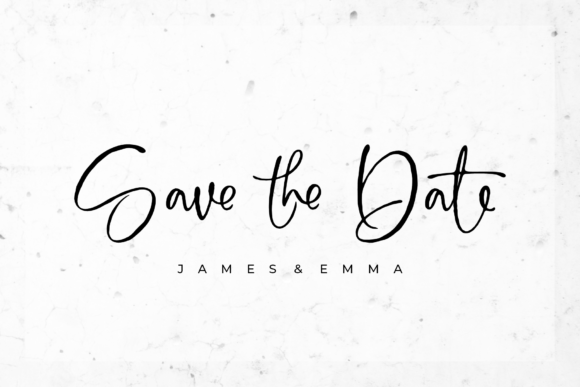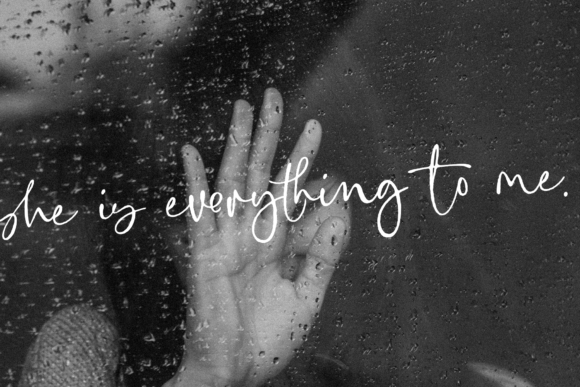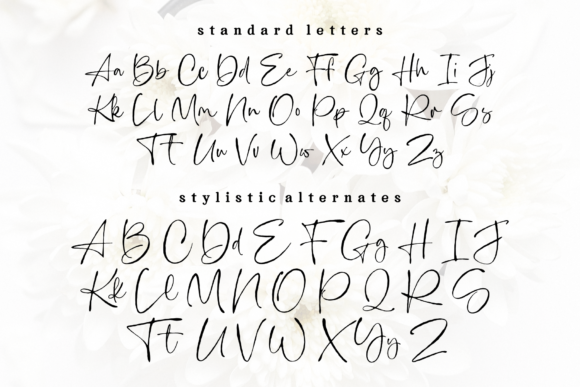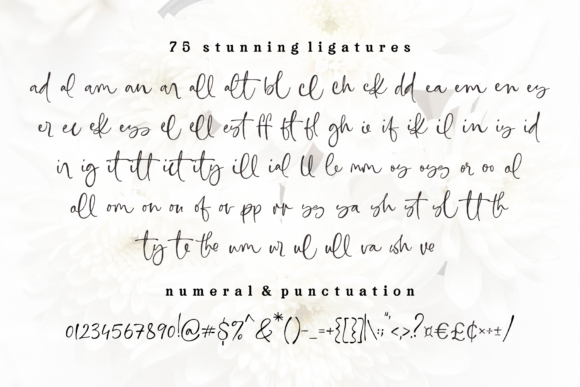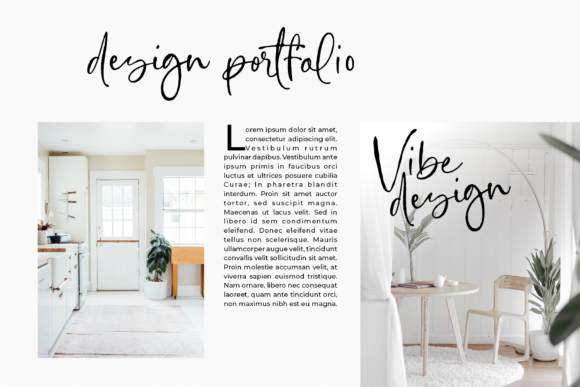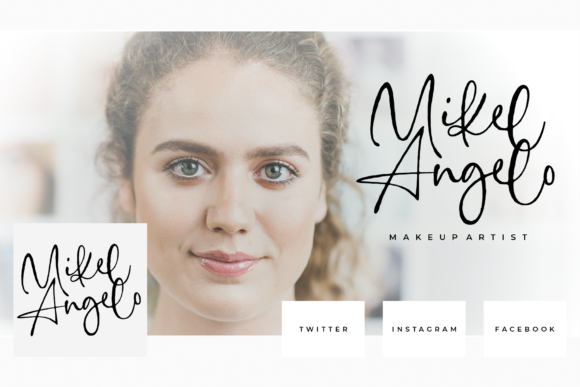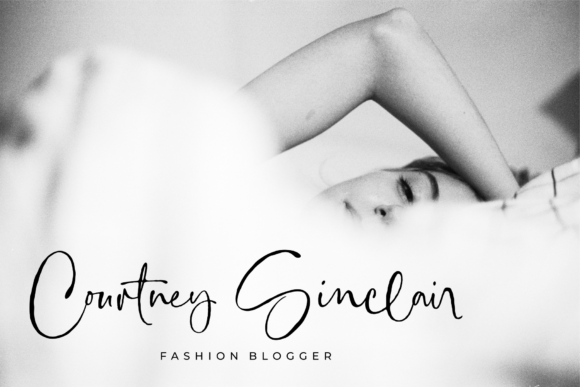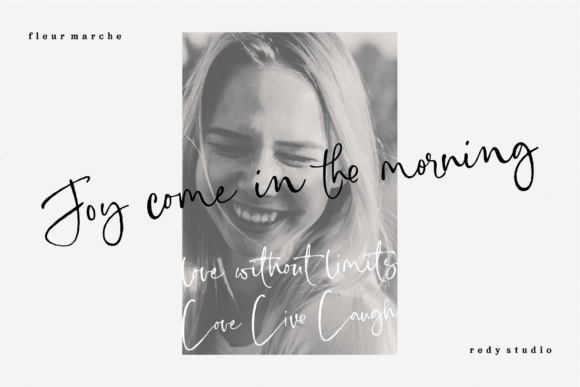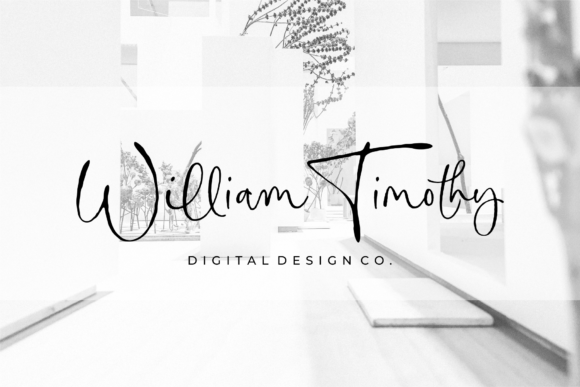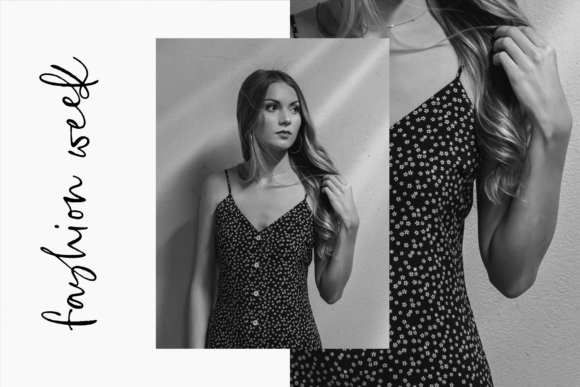
Fleur Marche Font
About Fleur Marche Font
Fleur Marche is a raw and organic script font full of authenticity. This unique handwritten font will add a personal touch to your next design in an instant.